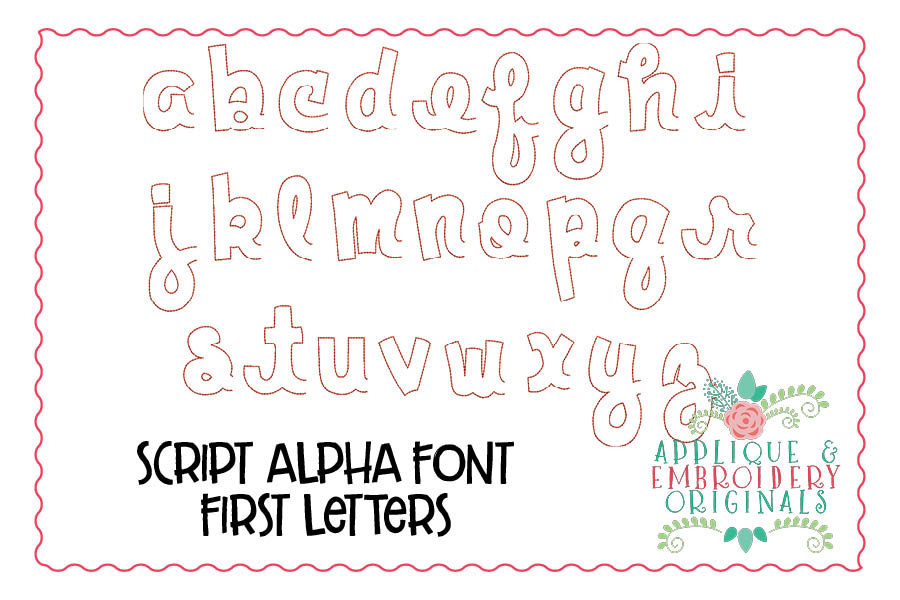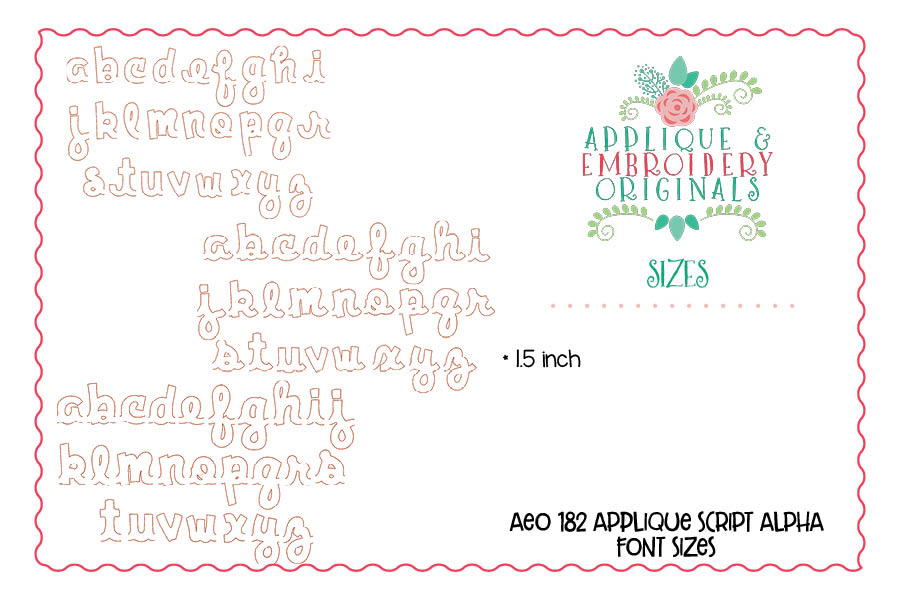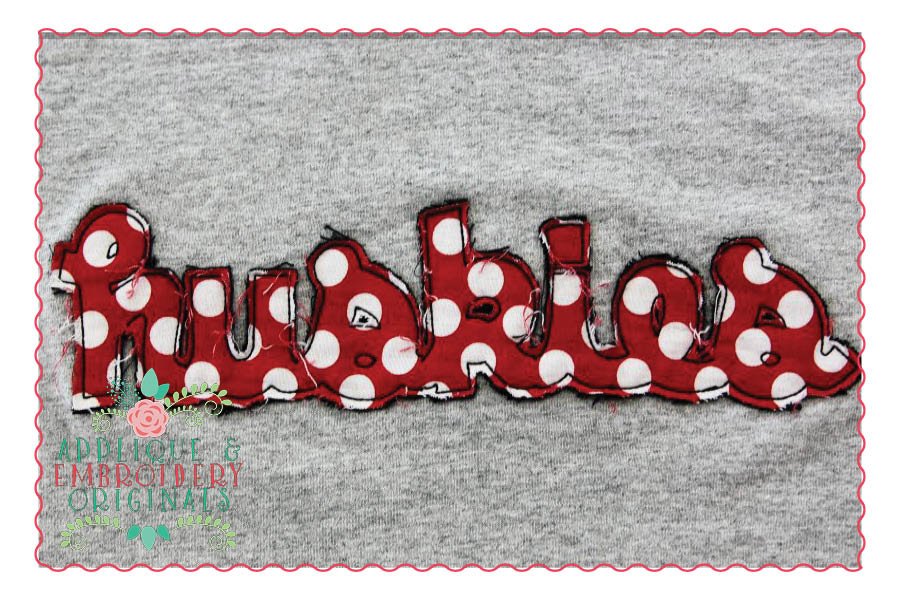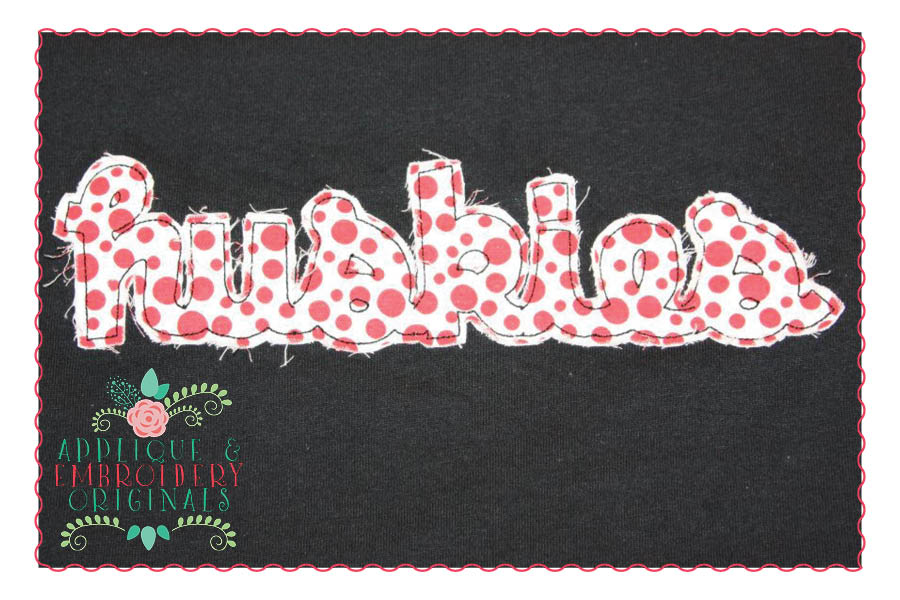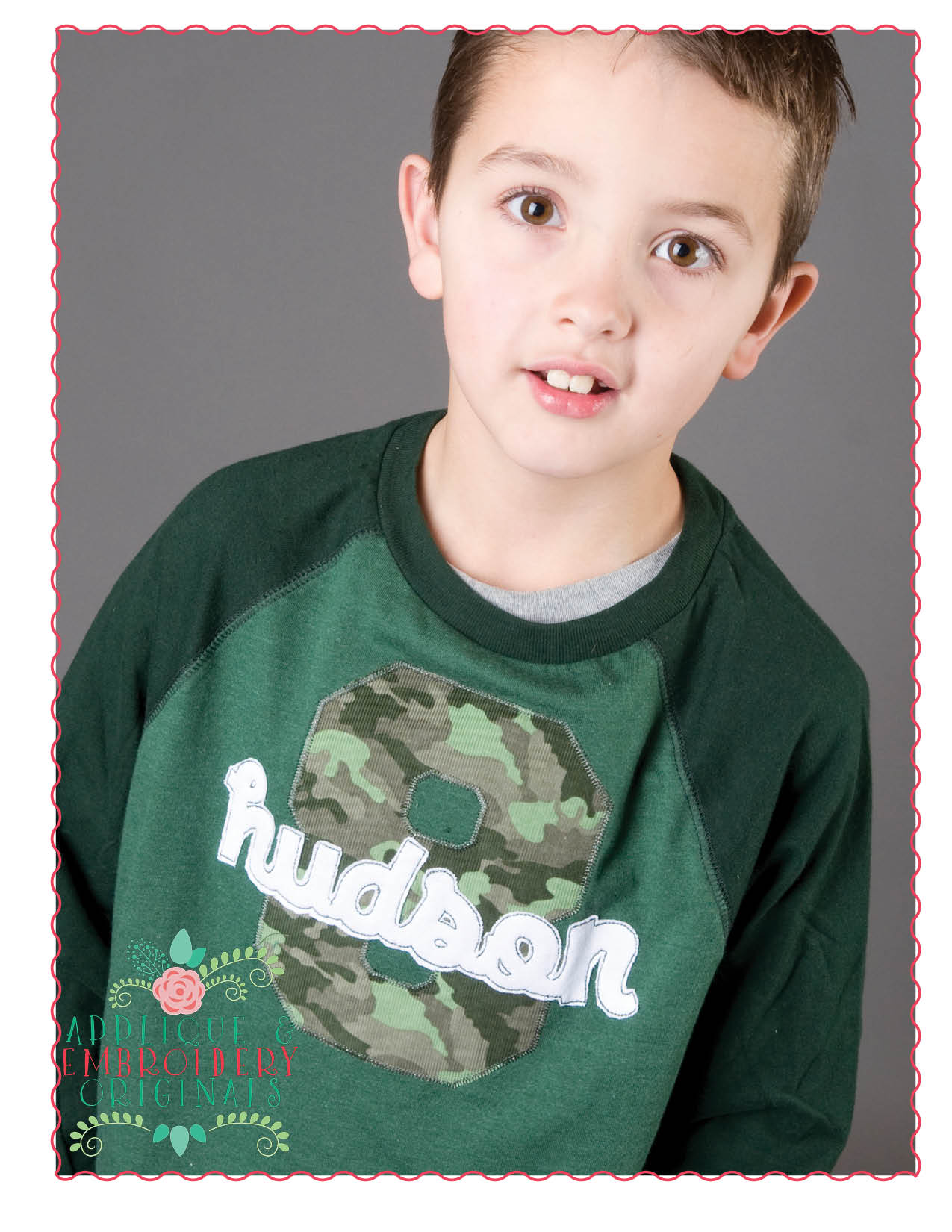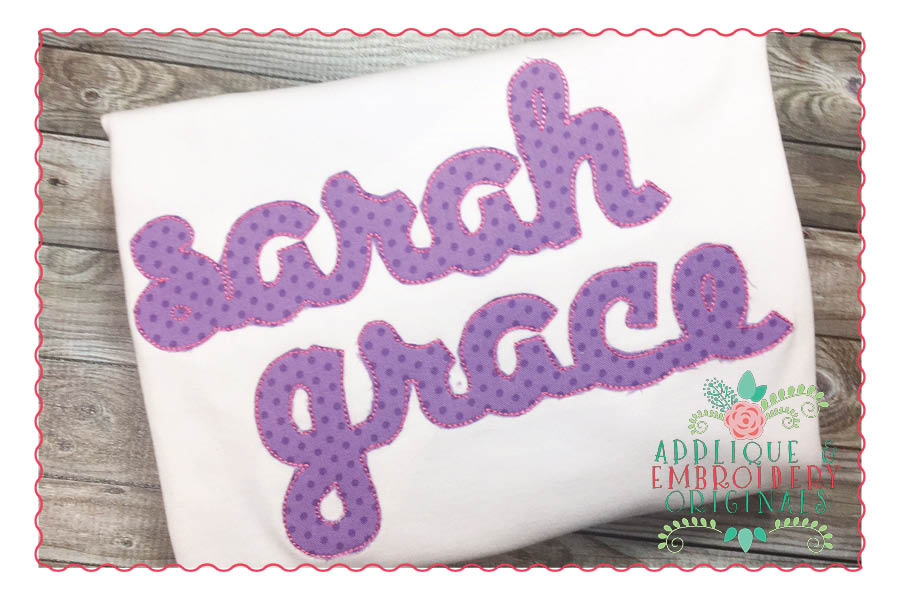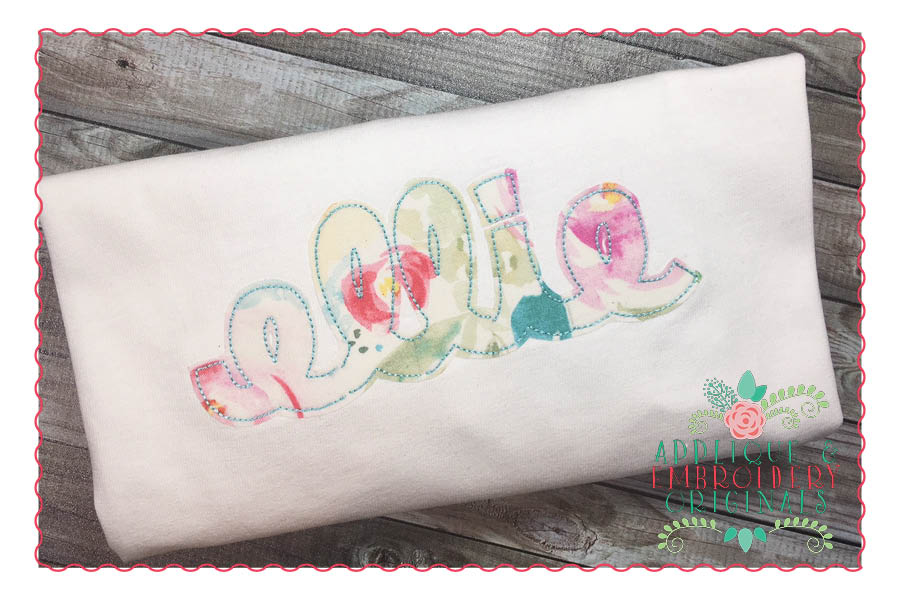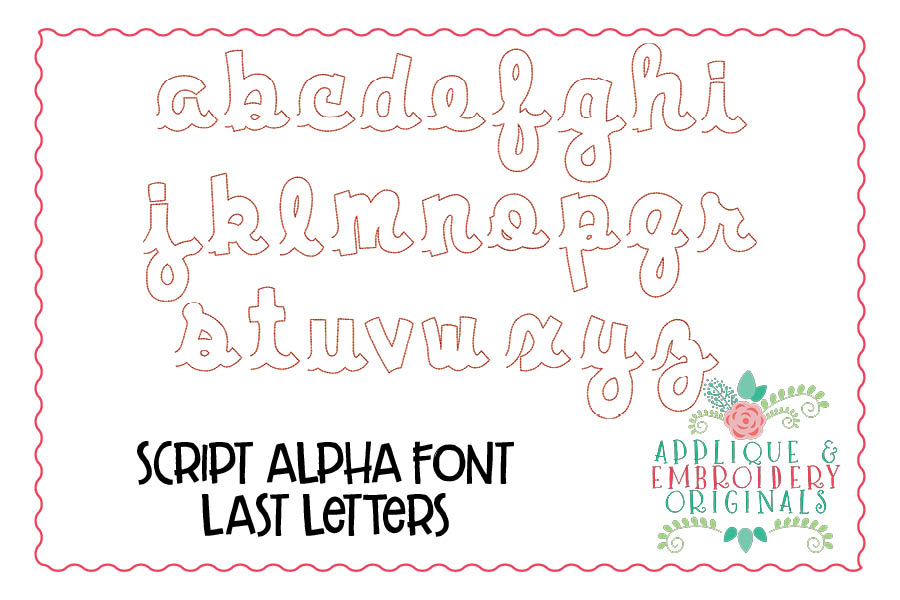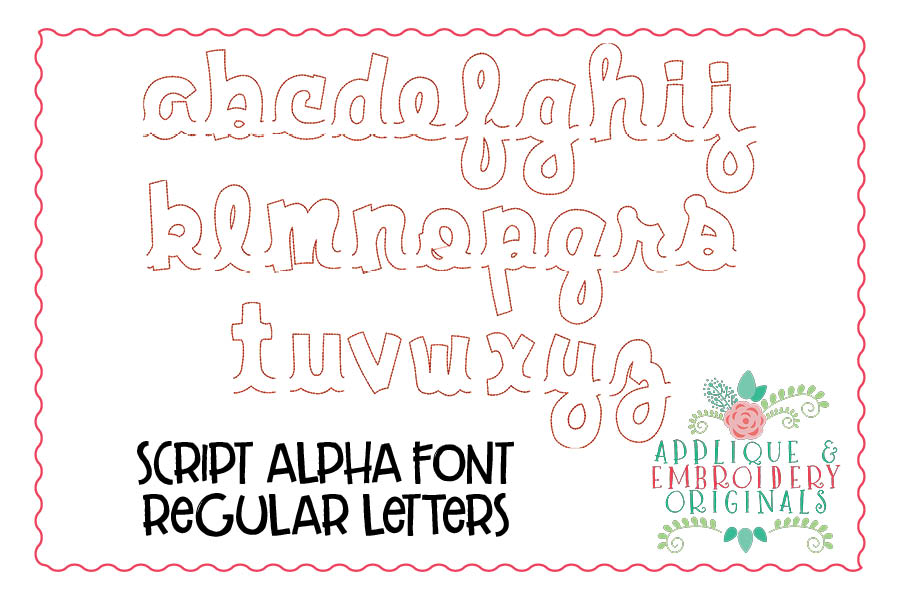
182 Applique Script Alpha for embroidery machine. Perfect for your shirt, bag, towel or other item!
These letters are approximately 1.5″ tall. These letters feature a bean stitch finish.